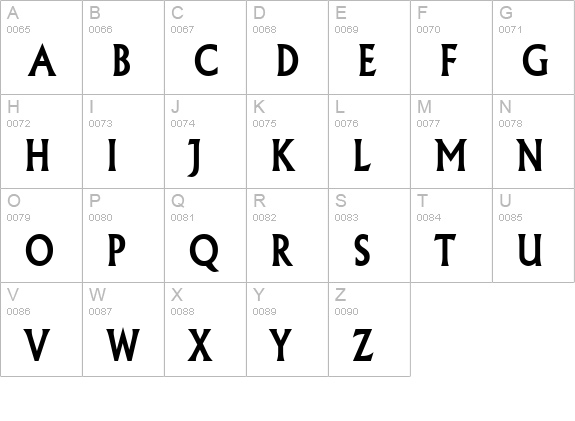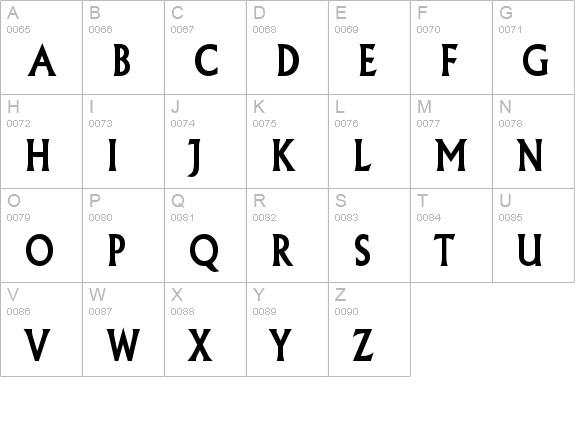
Flair Condensed Bold Font Details
Flair Condensed Bold is a strong, high-contrast, condensed-width variant in the Flair typeface family \xE2\x80\x94 well suited to headlines, attention-grabbing titles, and strong calls-to-action.
Flair Condensed Bold font is a sleek and modern typeface that exudes confidence and sophistication. With its bold and condensed design, this font is perfect for making a statement in headlines, titles, and branding materials. The strong lines and sharp angles of Flair Condensed Bold give it a distinct edge that commands attention. What's even better is that Flair Condensed Bold font is available for free download at FontsMarket.com. This means you can easily access this stylish font and use it in your projects without any hassle. Whether you're working on a poster, logo, website, or any other design project, Flair Condensed Bold font will add a touch of elegance and flair to your work. Download it today and elevate your designs with this stunning typeface.